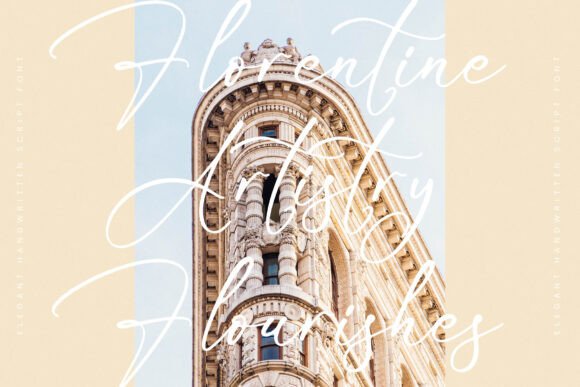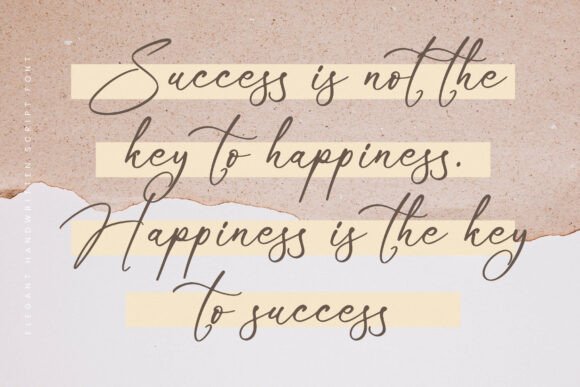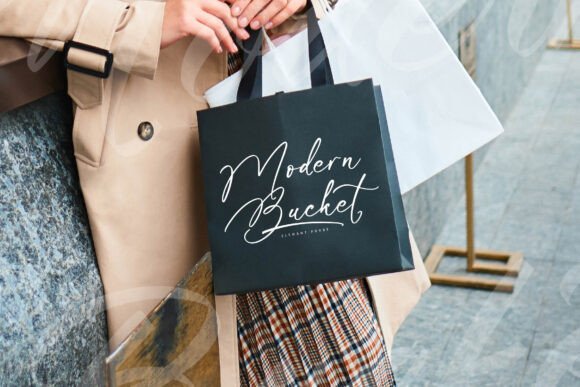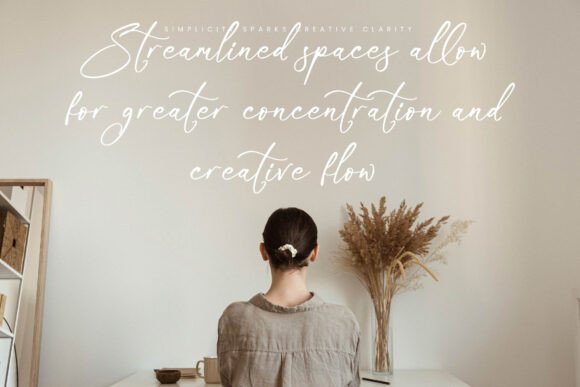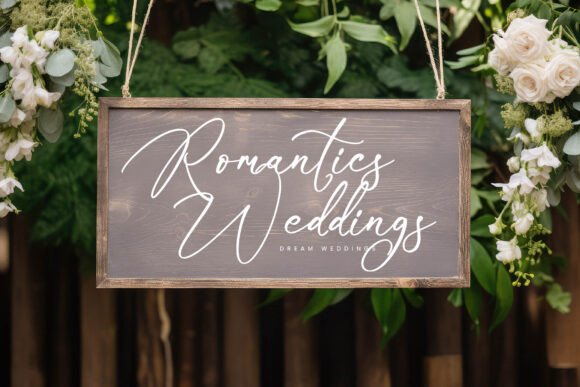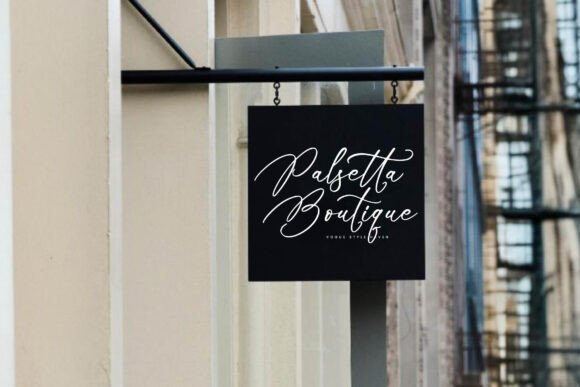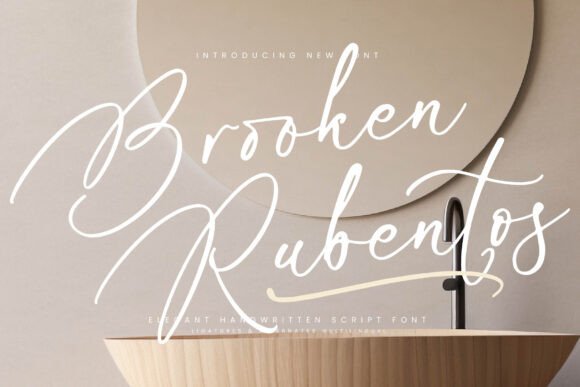
Discover the Elegance of Brooken Rubentos Font: Elevate Your Designs with Sophistication
In the world of typography, a font can make or break the aesthetic appeal of a design project. For designers and crafters seeking to infuse their creations with a touch of luxury and sophistication, the Brooken Rubentos Font is an exquisite choice. Crafted with precision and elegance by Integritype Studio, this elegant handwritten script font is versatile and perfect for a myriad of applications, from logos and branding projects to homewares designs, product packaging, and beyond.
The Essence of Brooken Rubentos Font
Brooken Rubentos is more than just a font; it’s an expression of style and refinement. Its elegant strokes and fluid connections evoke a sense of luxury, making it an ideal choice for projects that demand a premium feel. Whether you’re working on a logo, a branding project, or a product design, this font ensures that your creation stands out with a sophisticated charm.
One of the standout features of the Brooken Rubentos Font is its incredible versatility. It’s designed to complement a wide range of projects, including:
• Logos and Branding Projects: Create memorable and impactful logos that convey elegance and sophistication.
• Homewares Designs: Add a touch of luxury to your home decor designs, making them truly special.
• Product Packaging: Elevate your product packaging with a font that exudes quality and refinement.
• Mugs, Quotes, Posters, and Shopping Bags: Perfect for a variety of print materials that require a stylish and upscale look.
• T-shirts, Covers Books, Business Cards, Invitation Cards, and Greeting Cards: Ideal for creating visually stunning apparel and stationery.
• Labels, Photography, and Watermarks: Enhance your digital and physical assets with a sophisticated typographic style.
• Special Events: Make your event branding, invitations, and related materials truly unforgettable.
Crafting with Precision and Passion
Integritype Studio, the creative force behind Brooken Rubentos, is renowned for its attention to detail and passion for typography. The studio’s dedication to crafting fonts that inspire and elevate design projects is evident in the Brooken Rubentos Font. Each letterform is meticulously designed to ensure that it not only looks elegant in isolation but also flows beautifully with other characters, creating a harmonious and luxurious feel.
Why Choose Brooken Rubentos Font?
Choosing Brooken Rubentos for your design project comes with numerous benefits:
• Unique and Distinctive: Stand out from the crowd with a font that is both unique and memorable.
• Elegant and Sophisticated: Infuse your designs with a sense of luxury and refinement.
• Highly Versatile: Use it across a variety of projects, from digital designs to print materials.
• User-Friendly: Easy to integrate into your design workflow, ensuring a smooth and efficient design process.
For designers and crafters aiming to create designs that exude elegance and sophistication, the Brooken Rubentos Font is an invaluable resource. Its elegant handwritten script, crafted with love and care by Integritype Studio, is sure to elevate your projects to new heights of luxury and style. Whether you’re working on a branding project, product packaging, or any other design that requires a premium taste, Brooken Rubentos is the perfect choice. Discover the elegance and versatility of Brooken Rubentos Font today and transform your designs with its sophisticated charm.